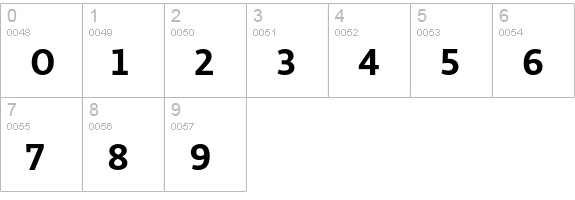
Libertad Bold is a strong, high-contrast variant in the Libertad typeface family \xE2\x80\x94 well suited to headlines, attention-grabbing titles, and strong calls-to-action.
Libertad Bold font is a striking and versatile typeface that embodies strength and boldness in its design. With its clean lines and powerful presence, this font is perfect for making a statement in any project. Whether used for headlines, logos, posters, or branding, Libertad Bold demands attention and exudes confidence. One of the best features of Libertad Bold font is that it is free to download at FontsMarket.com. This means that you can access this exceptional font without any cost, making it an ideal choice for both personal and commercial use. Don't miss out on the opportunity to enhance your designs with the impactful and dynamic style of Libertad Bold font - get it for free today at FontsMarket.com!